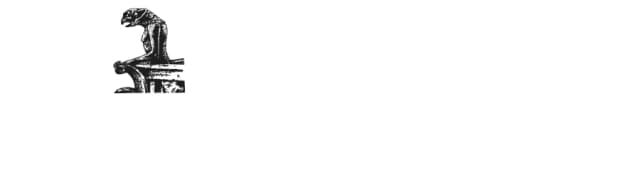
About Andi's Critters Font
Andi's Critters is a dingbat font designed by Screaming Fonts. It includes 18 glyphs, a regular weight, and TTF (TrueType) format. Andi's Critters is free to download; check the license details on this page before commercial use. Dingbat fonts like Andi's Critters work best for icons, ornaments, bullet points, and decorative accents.
Andi's Critters Font is a versatile dingbats font that works for both headings and body text. Pair it with a contrasting sans-serif or serif font to add visual interest and a clear distinction between titles and body copy.
Andi's Critters Font
Andi's Critters Font is a dingbats typeface by Screaming Fonts, ideal for logos, invitations, branding, and creative projects.